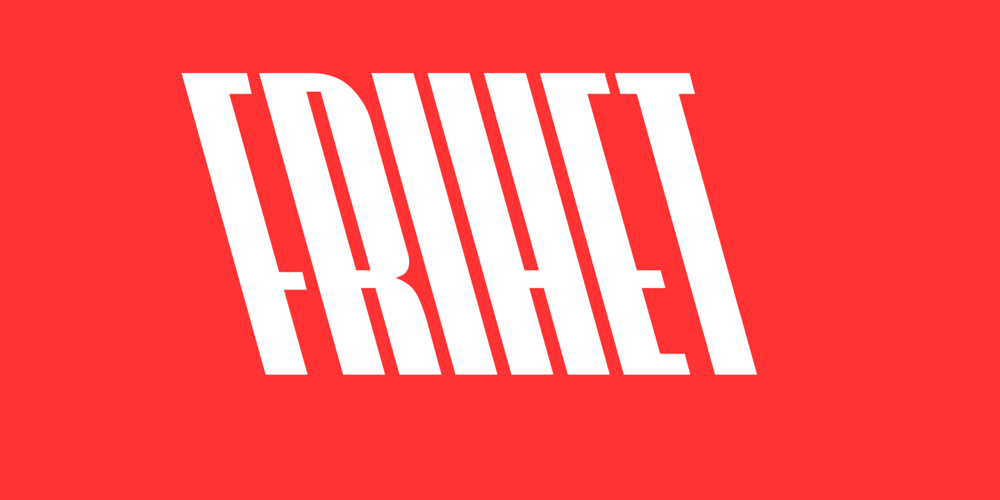
Brexit Font Family was designed by Cato Hernes Jensen and published by Cafe.no. Brexit contains 3 styles and family package options. Brexit now has its own typeface. Brexit the type family is made for being slanted one way or another, to offer stylistic choices and expressions, like for or against, or remain or leave. Because Brexit is international, the letters are made to support many languages. The name is given to mark the British withdrawal from the European union. Brexit is an elongated display typeface in three styles. It is a sans serif with contrasts in stroke and shape. Brexit supports languages with latin characters and ligatures as well as Greek and Cyrillic. The italic and contra italic are extremes that can be used to contrast each other or versus a standing regular. Sometimes complex concepts are best communicated in single words, and the typeface Brexit is made for that and more. The typeface works well for clear messages, shop displays, poster work, menus, signage and other purposes where you want to have impact.